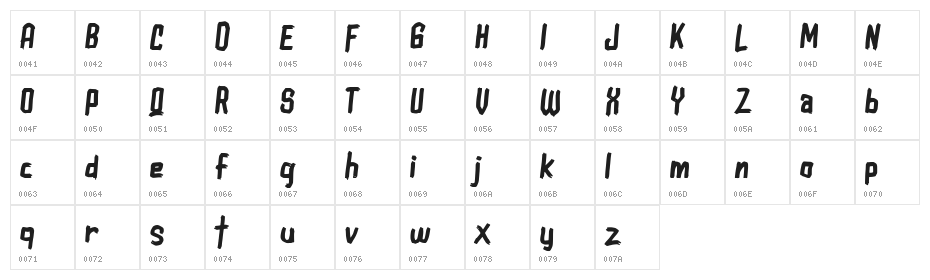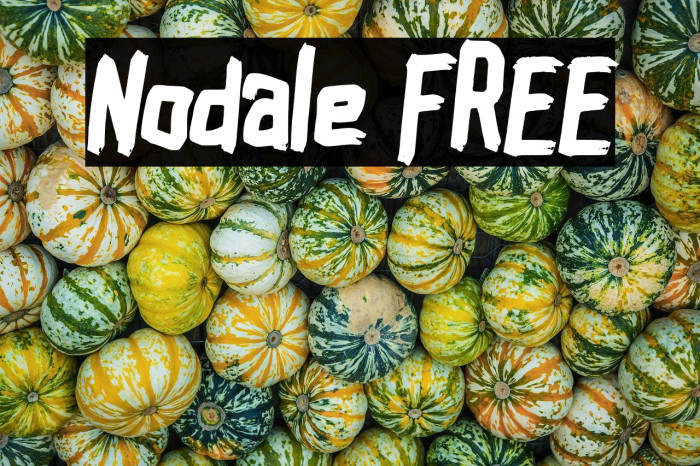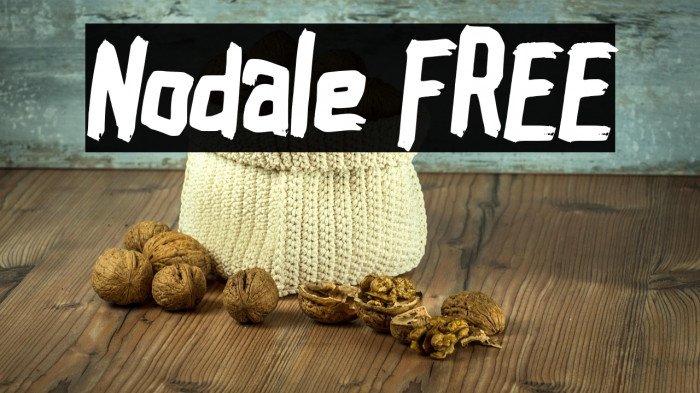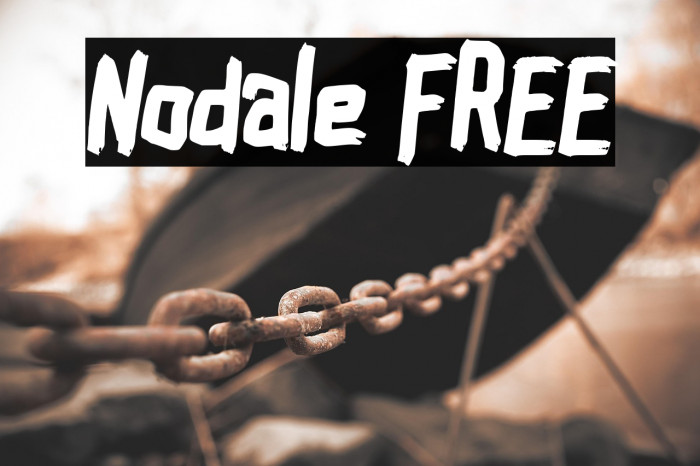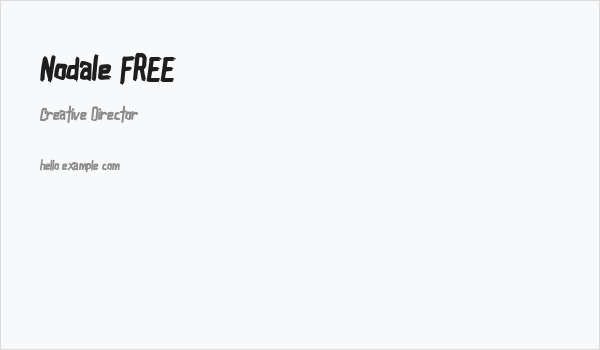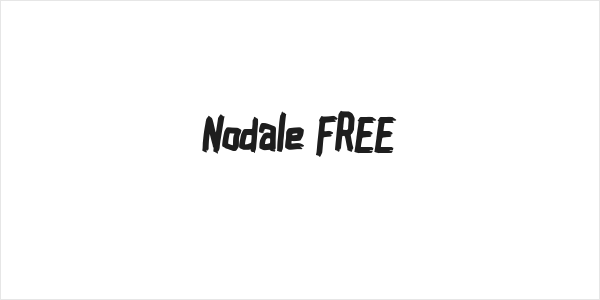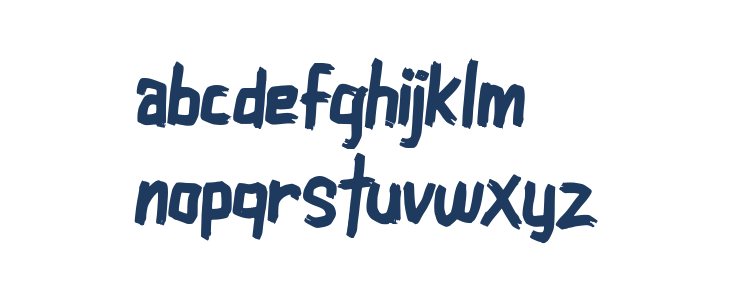
Nodale FREE Font
Nodale FREE Description
This font exhibits a bold and dynamic style, characterized by its brush-like strokes and slightly irregular edges, giving it a hand-painted appearance. The uppercase letters are robust and commanding, while the lowercase letters maintain a consistent flow with a slightly more relaxed form. The font's unique style is further emphasized by its angular and sharp lines, which add a sense of energy and movement. The overall design is both modern and artistic, making it suitable for creative and expressive projects. The font maintains a consistent weight throughout, ensuring readability while still offering a distinctive visual impact.
| Overall Style | Modern, Artistic |
| Proposed Projects | Ideal for posters, album covers, branding, and any project requiring a bold, artistic touch. |